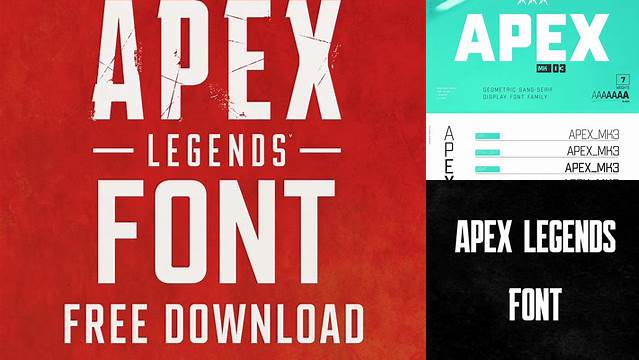
H2: Understanding the Apex Font Family and Its Appeal
Alright, first things first: What makes the Apex Free Font so special? Well, guys, it's a modern, versatile typeface that's perfect for a ton of different projects. Think clean lines, a contemporary feel, and a readability that makes it great for everything from headlines to body text. The appeal of Apex Free Font really lies in its flexibility. You can use it for websites, print materials, logos, and so much more. It's designed to look good in various sizes, so you don't have to worry about it losing its impact. And the best part? It's available as a free font download! This accessibility is a game-changer, especially for those on a budget or just starting out. The design is sleek and professional, giving your work a polished look without costing you a dime. Plus, the different weights and styles available within the Apex Font Family offer even more creative possibilities. You can easily switch between bold, regular, or italic versions to emphasize different parts of your text, which really helps with visual hierarchy. This adaptability is what sets Apex Free Font apart from many other fonts out there, making it a go-to choice for designers and creatives who need a reliable and stylish typeface. So, before you rush off to download it, you should know that the font also plays well with other fonts. You can create interesting font pairings, which gives your designs even more flavor and visual interest. In a nutshell, if you're looking for a font that is modern, readable, and incredibly versatile, the Apex Free Font is definitely one to consider.
H3: The History and Design Philosophy of Apex Font
Let’s dive a little deeper into the story behind this awesome font, the Apex Free Font. Every great typeface has a story, and understanding the design philosophy behind Apex can help you appreciate its elegance even more. Designed by a talented team of typographers (the specifics may vary depending on the version you find), Apex was crafted with the goal of creating a modern, clean, and highly functional font. The design philosophy centers around simplicity and readability. The creators wanted a font that would work well in both digital and print environments, making it a perfect choice for a wide variety of applications. You can clearly see this in its structure: the letterforms are carefully constructed, with a focus on clear shapes and balanced proportions. The attention to detail is evident in every curve and angle, ensuring that each character is both aesthetically pleasing and easy to read. Moreover, the design wasn't just about aesthetics; it was also about functionality. The designers put significant effort into creating different weights and styles within the Apex Font Family. This allows users to emphasize important parts of their text or create visual interest without having to switch fonts. This versatility is a key element of the font's design philosophy, making it suitable for headlines, body text, and everything in between. The designers probably also considered legibility at various sizes, a critical aspect for a font's overall usefulness. This careful consideration ensures that the Apex Free Font remains readable and effective, regardless of how it's used. By understanding this design philosophy, you’ll be able to use Apex Free Font with even greater confidence and creativity. You’ll be able to create designs that are both beautiful and effective, knowing the values behind the font.